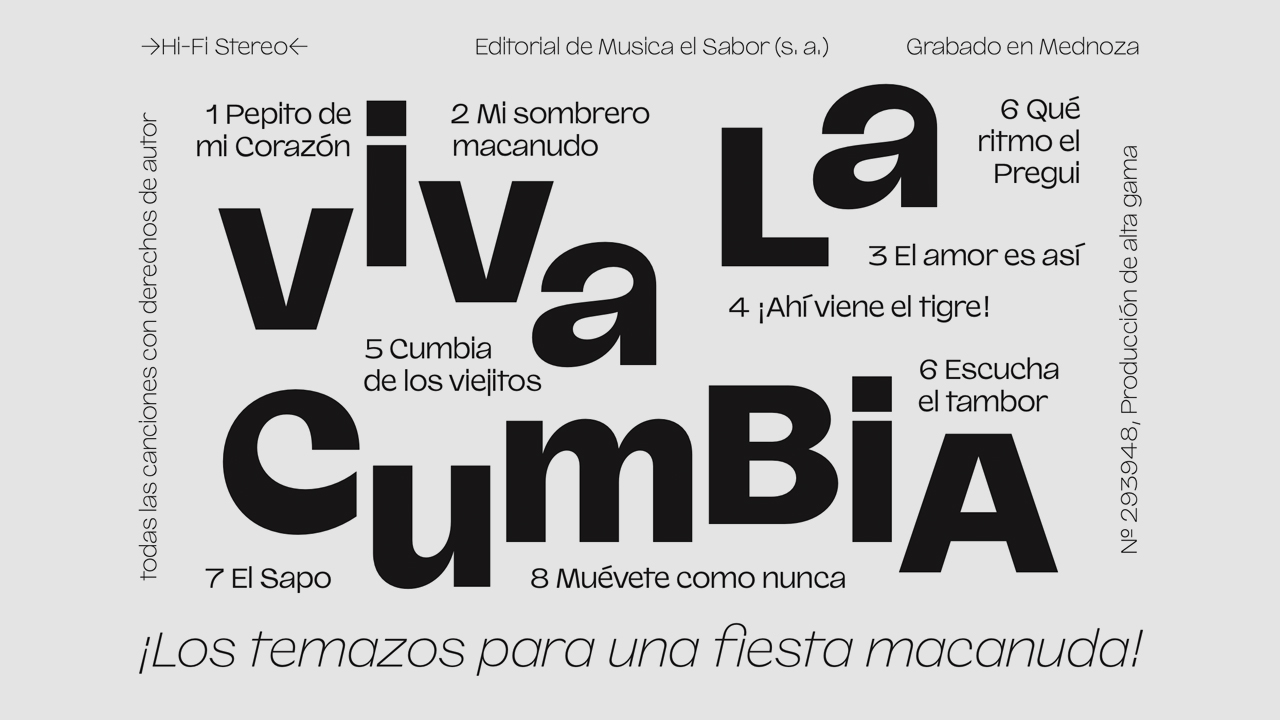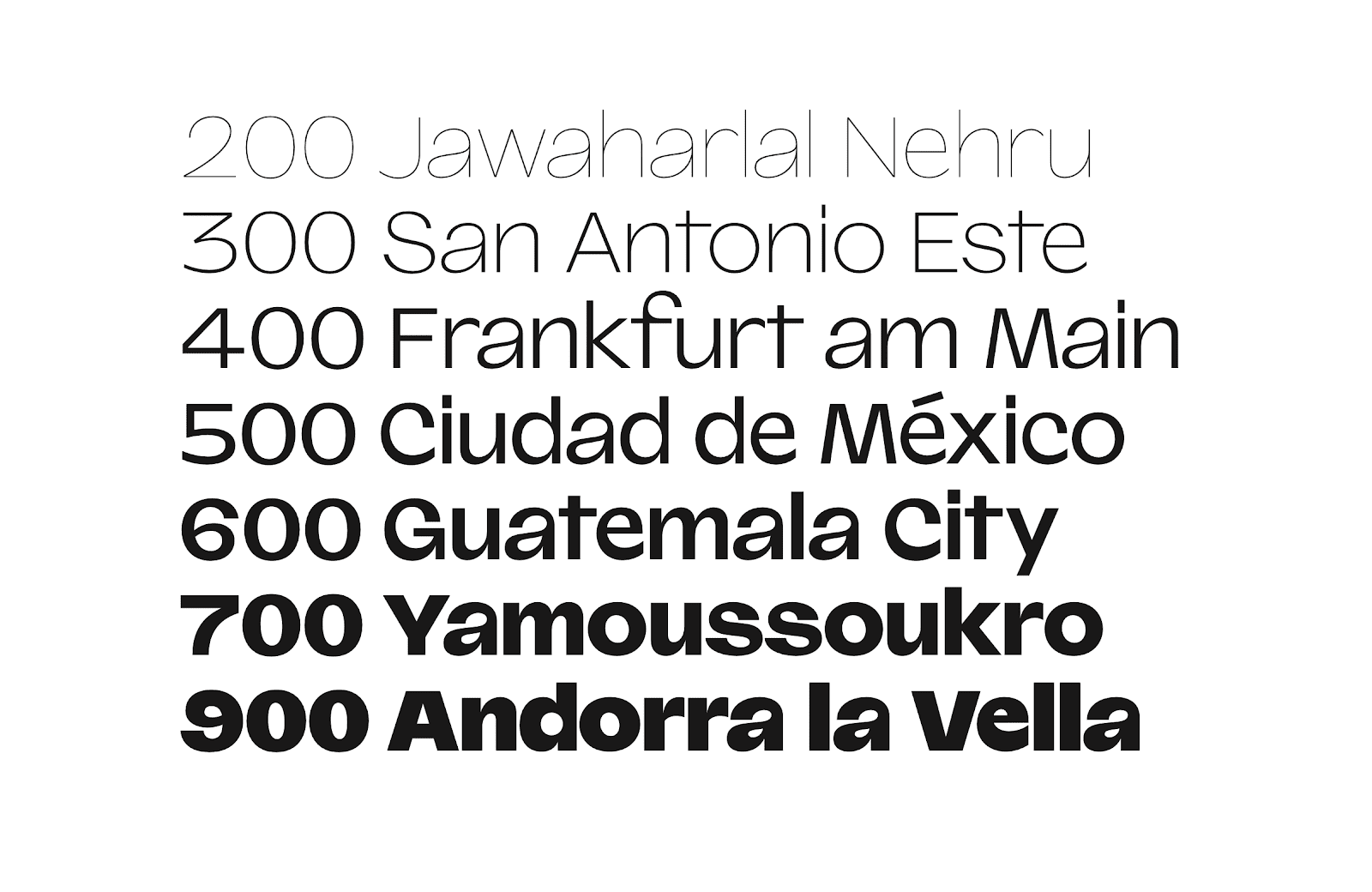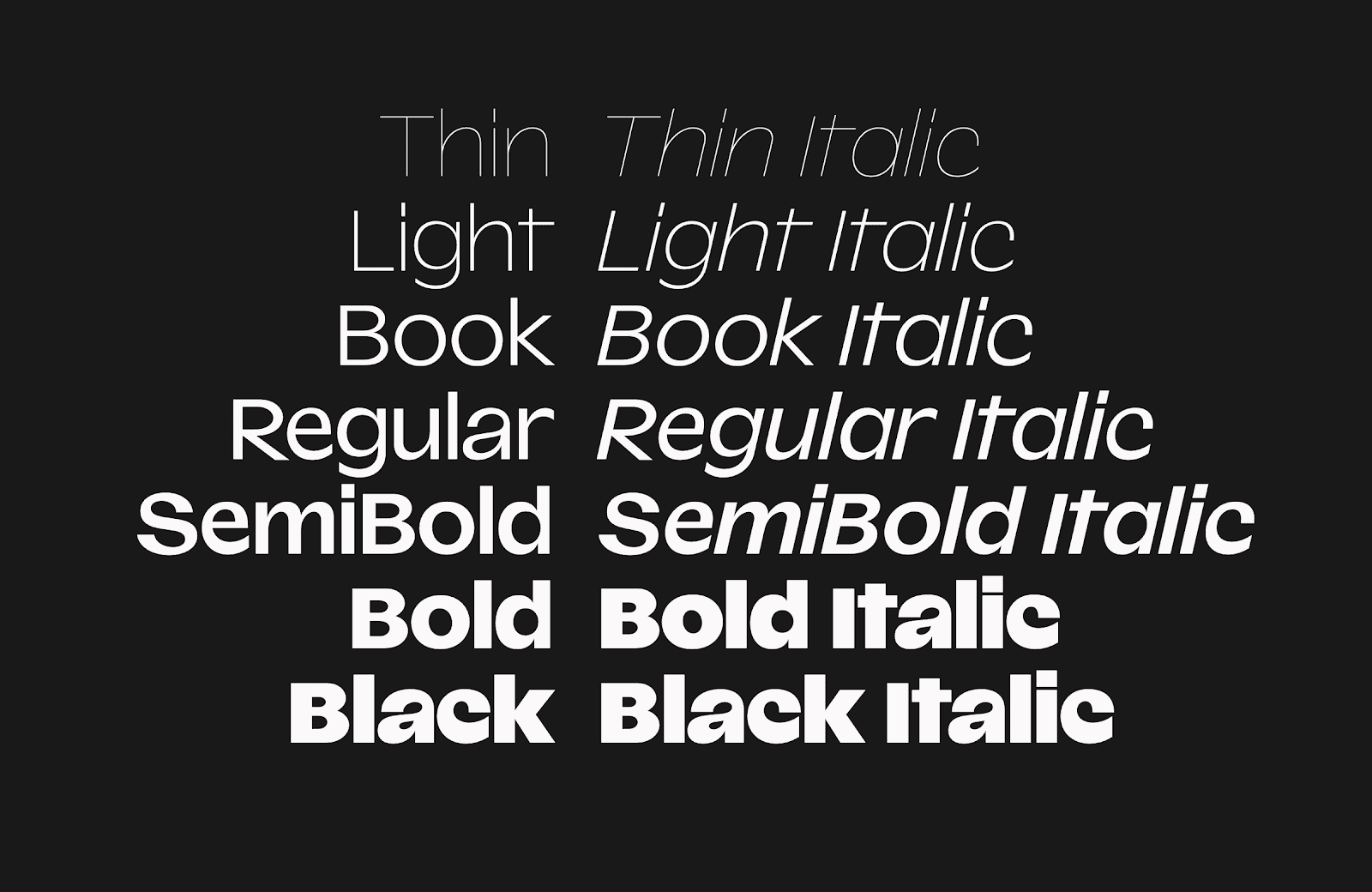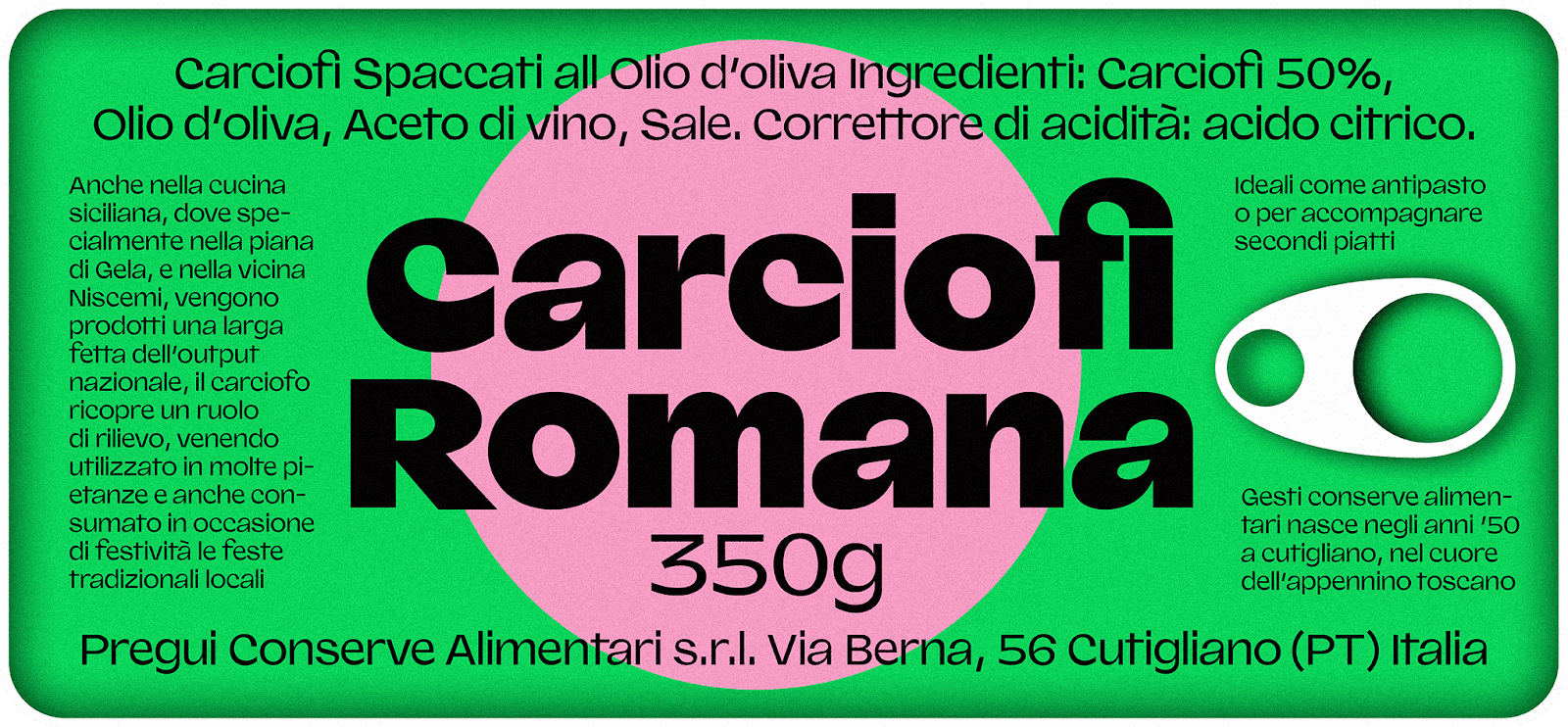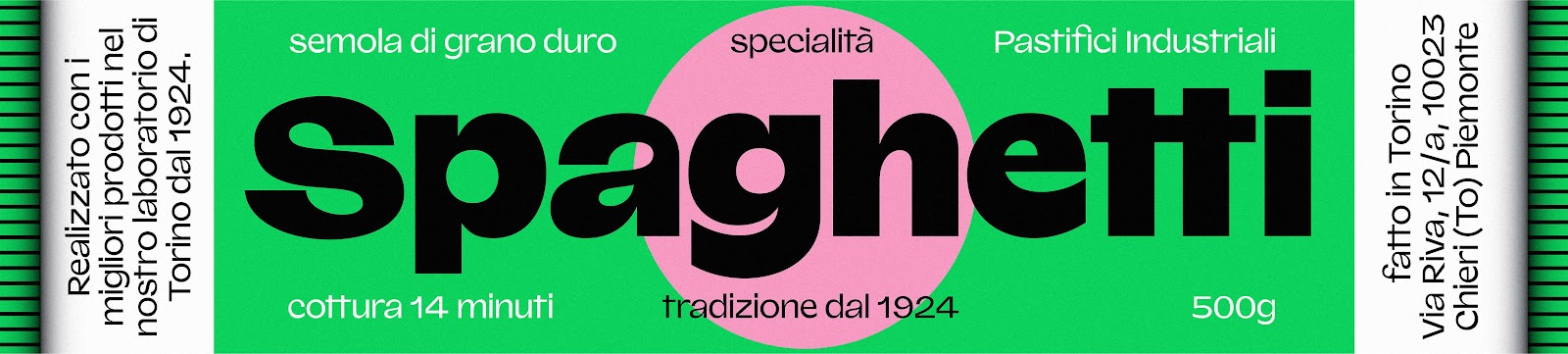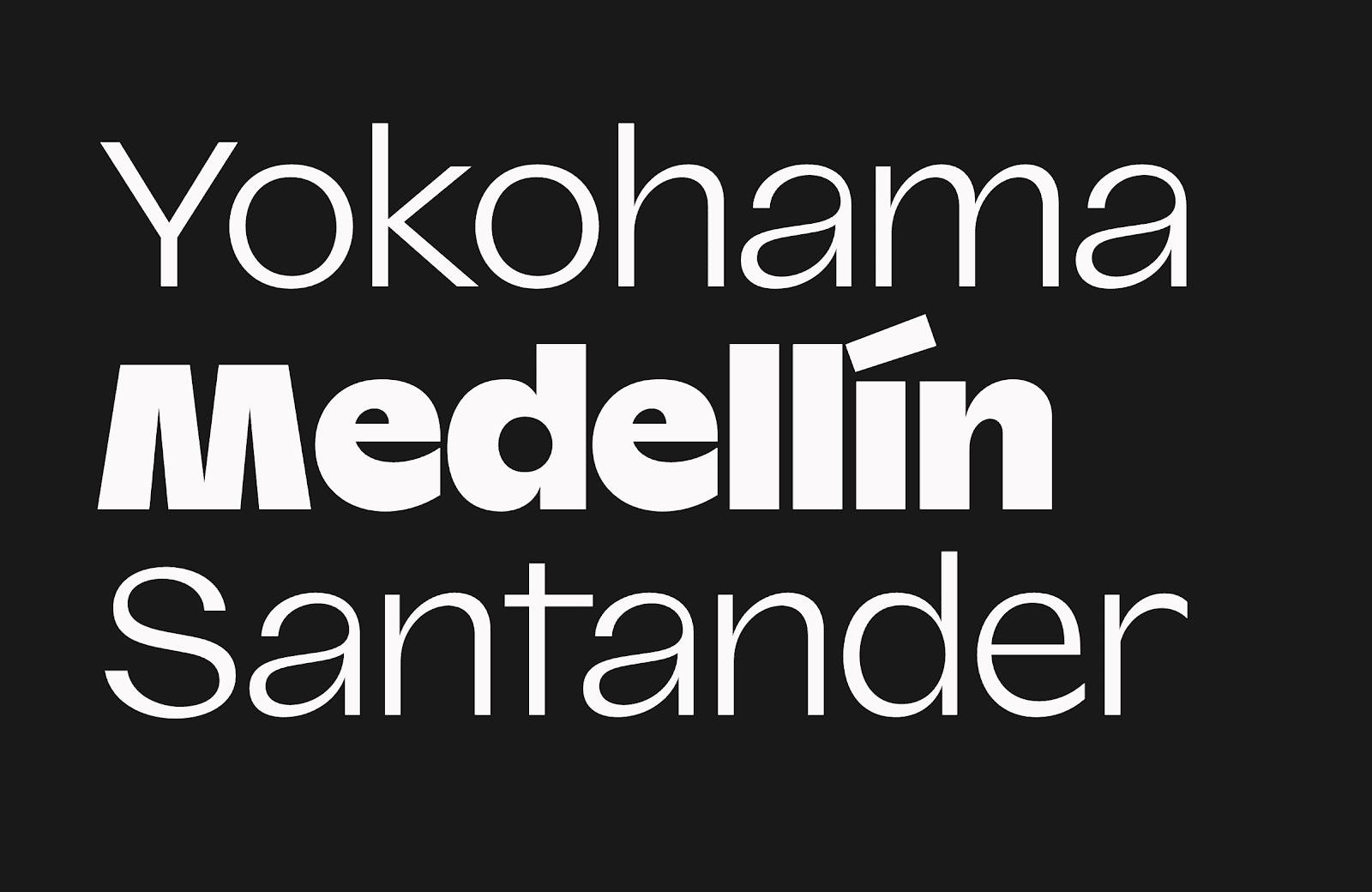
Valizas Font Family is a cousin of the Recife font family. This is a powerful san-serif font with unique lines. Valizas has a large x dimension, which makes the font stand out more.
Valizas font is suitable for many different designs including for long text and large headlines it looks great at any size.
Valizas Font Family with 14 styles ranging in weight from thin to black and supports over 100 different languages.
Weights: Thin / Thin Italic / Light / Light Italic / Book / Book Italic / Regular / Regular Italic / SemiBold / SemiBold Italic / Bold / Bold Italic / Black / Black Italic.